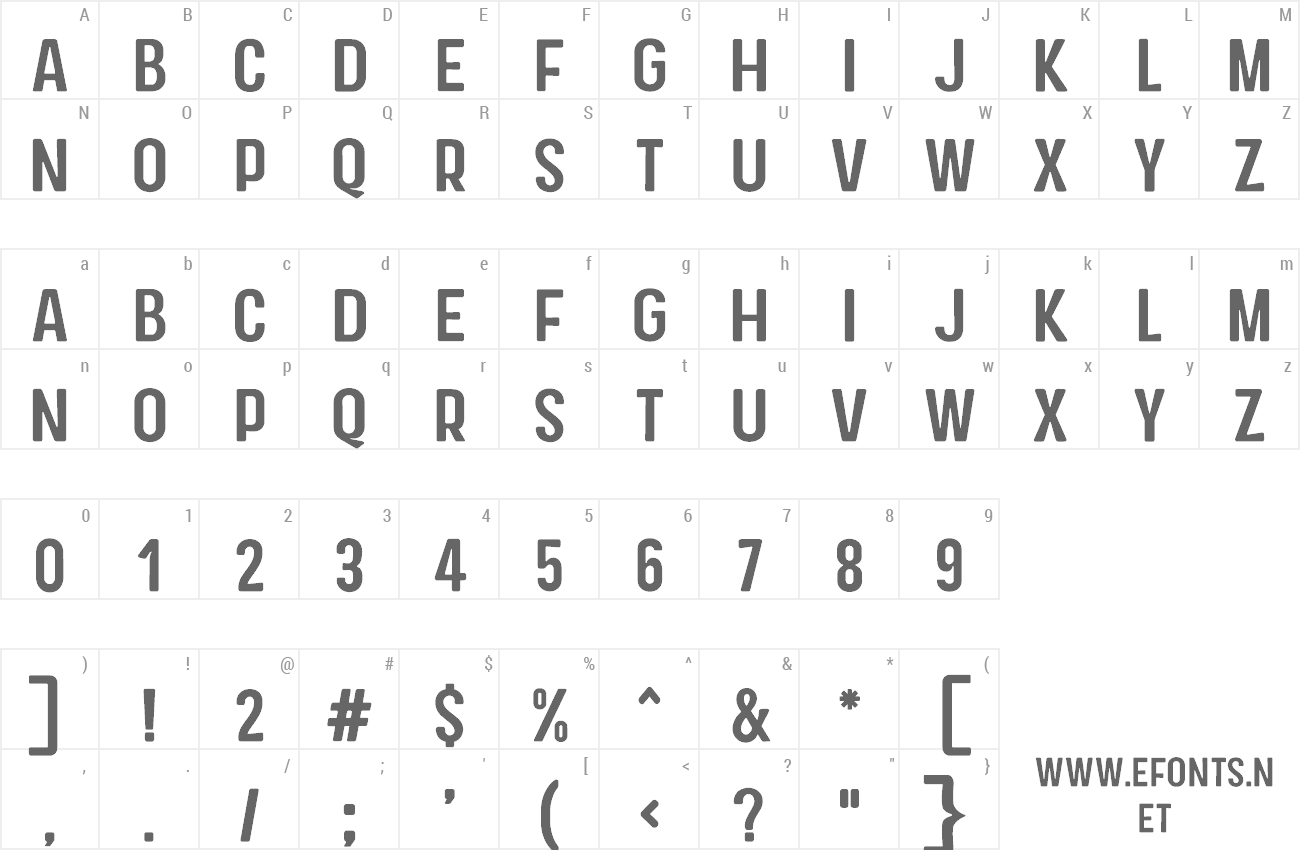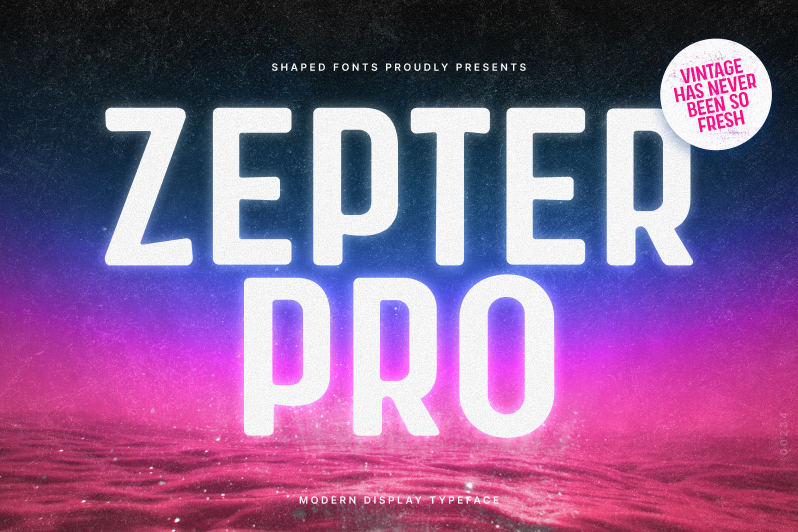
Introducing Zepter Pro � an instant classic designed to work across almost any use case. Whether for your next logo project or a bold headline, its character is playful yet confident and straightforward. You can enjoy the full typeface as a free download here including multi-language, number and special character support!If you plan to use the font for selling goods or any kind of commercial activity, please make sure to obtain the appropriate license: Purchase your license: www.shapedfonts.com/zepter-pro Interested in making Zepter Pro your company�s main branding typeface? Get in touch (license@shapedfonts.com) � we�d be happy to customise the font to perfectly fit your needs. |